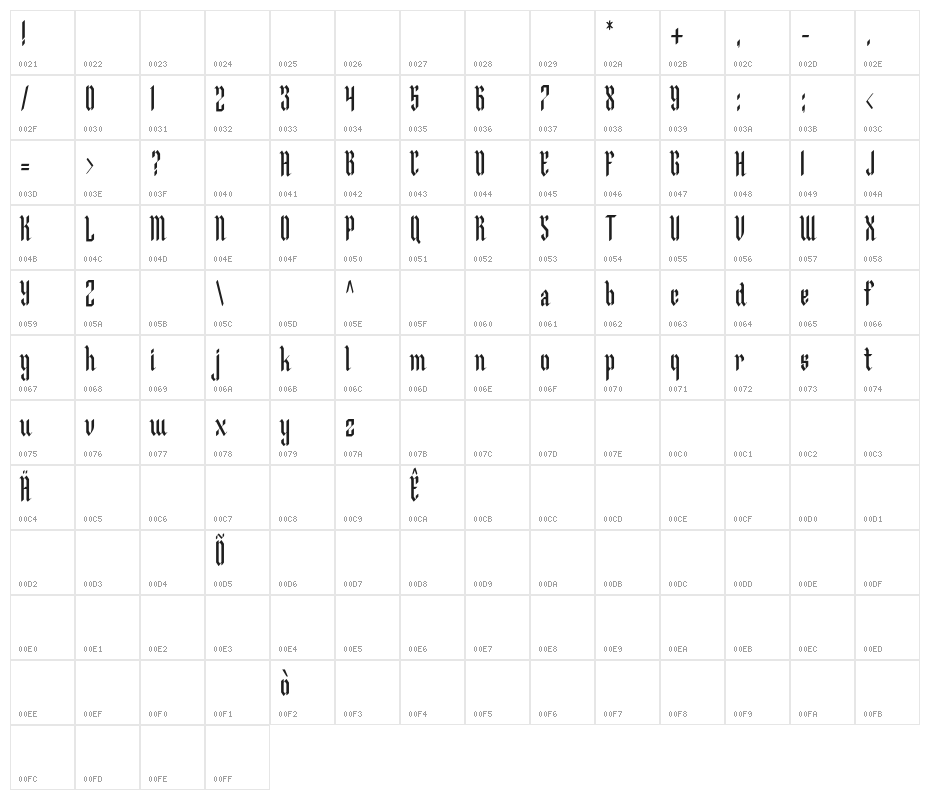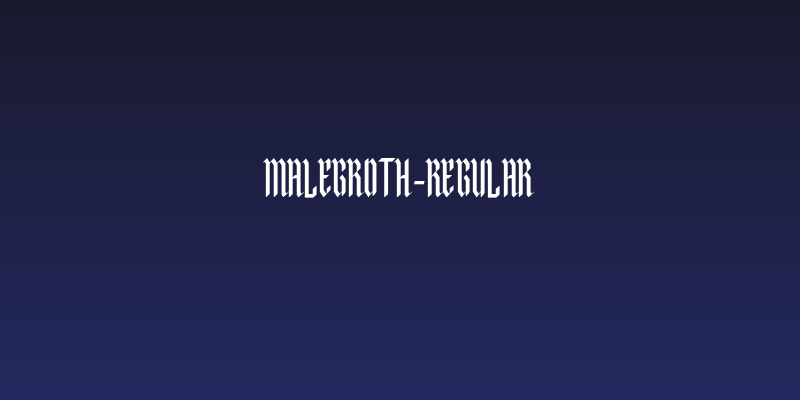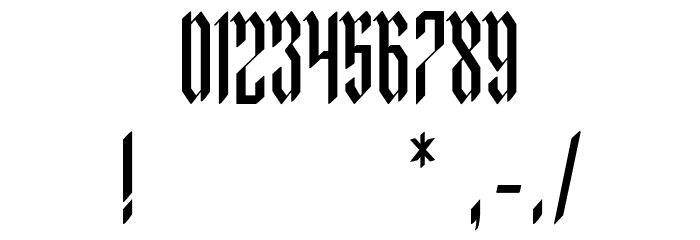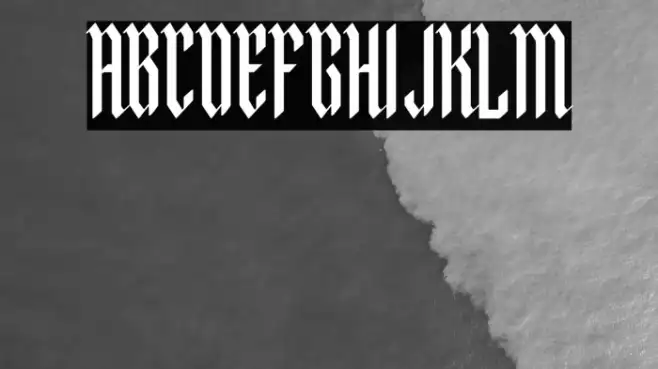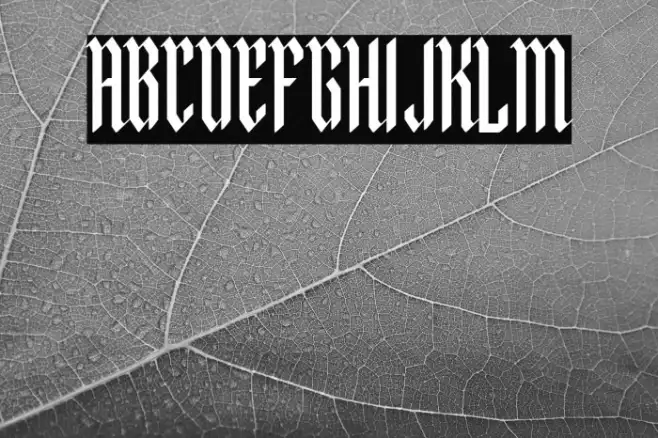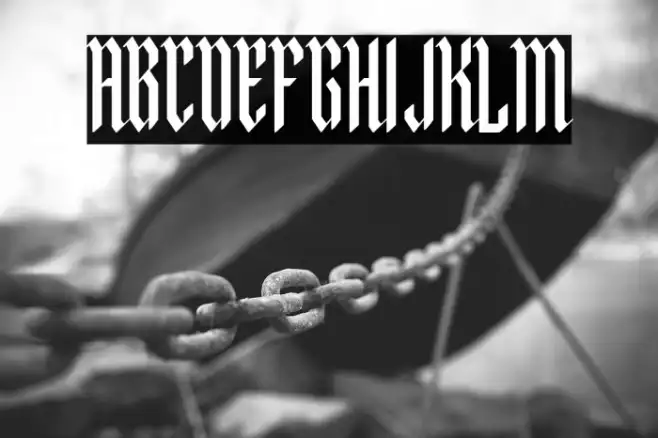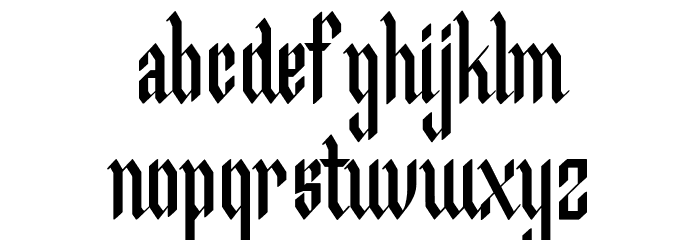
Malegroth-Regular Font
Malegroth-Regular Description
This font exhibits a bold and striking blackletter style, characterized by its sharp, angular lines and dramatic presence. The uppercase letters are tall and narrow, with pointed serifs and intricate detailing that evoke a sense of tradition and historical significance. The lowercase letters maintain the same angular aesthetic, providing a cohesive look across the typeface. Numbers and special characters are designed with the same attention to detail, ensuring consistency throughout. The overall appearance is reminiscent of medieval script, making it ideal for projects that require a touch of antiquity and elegance.
| Proposed Projects | Suitable for historical documents, gothic-themed designs, book covers, and branding that requires a classic and authoritative look. |